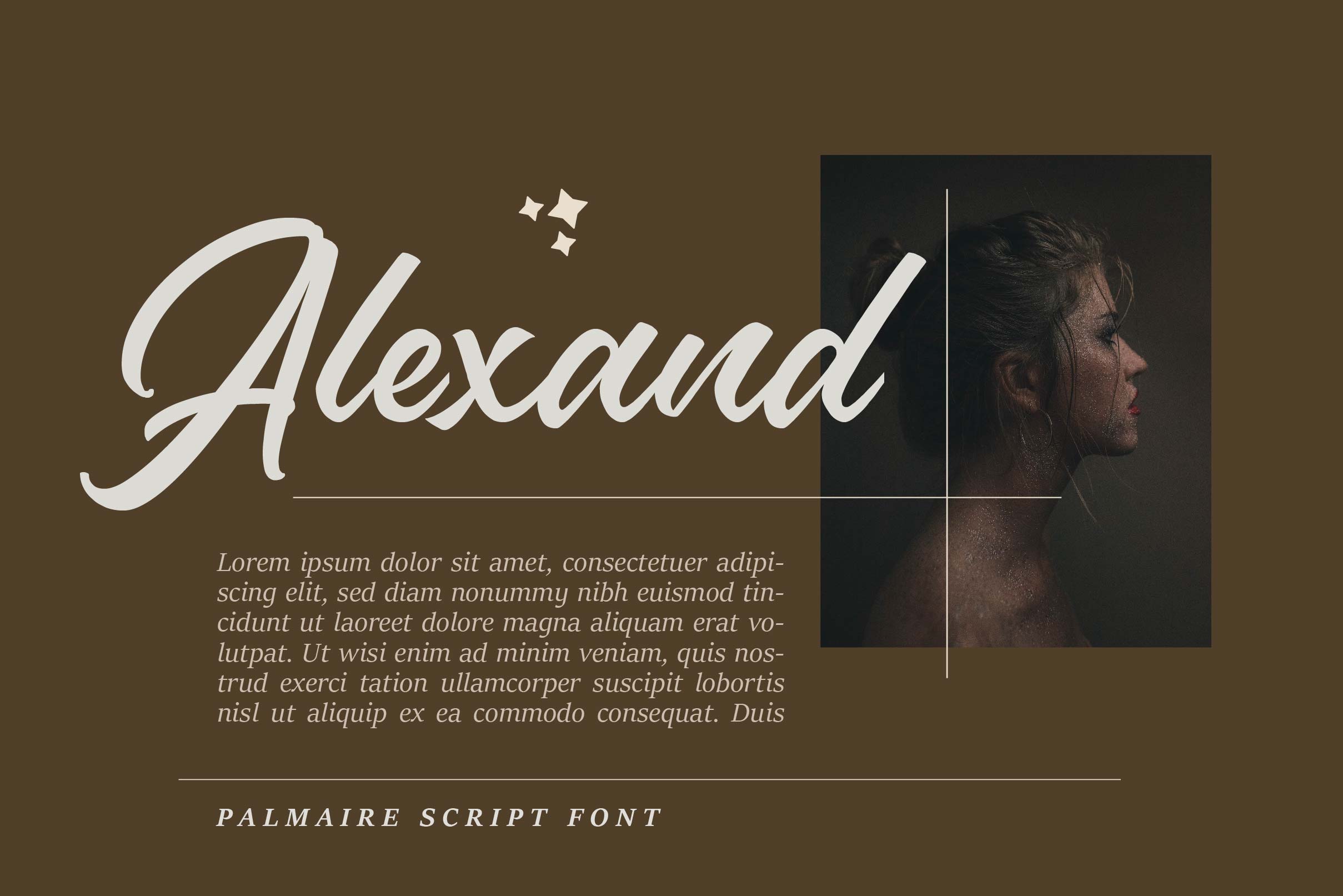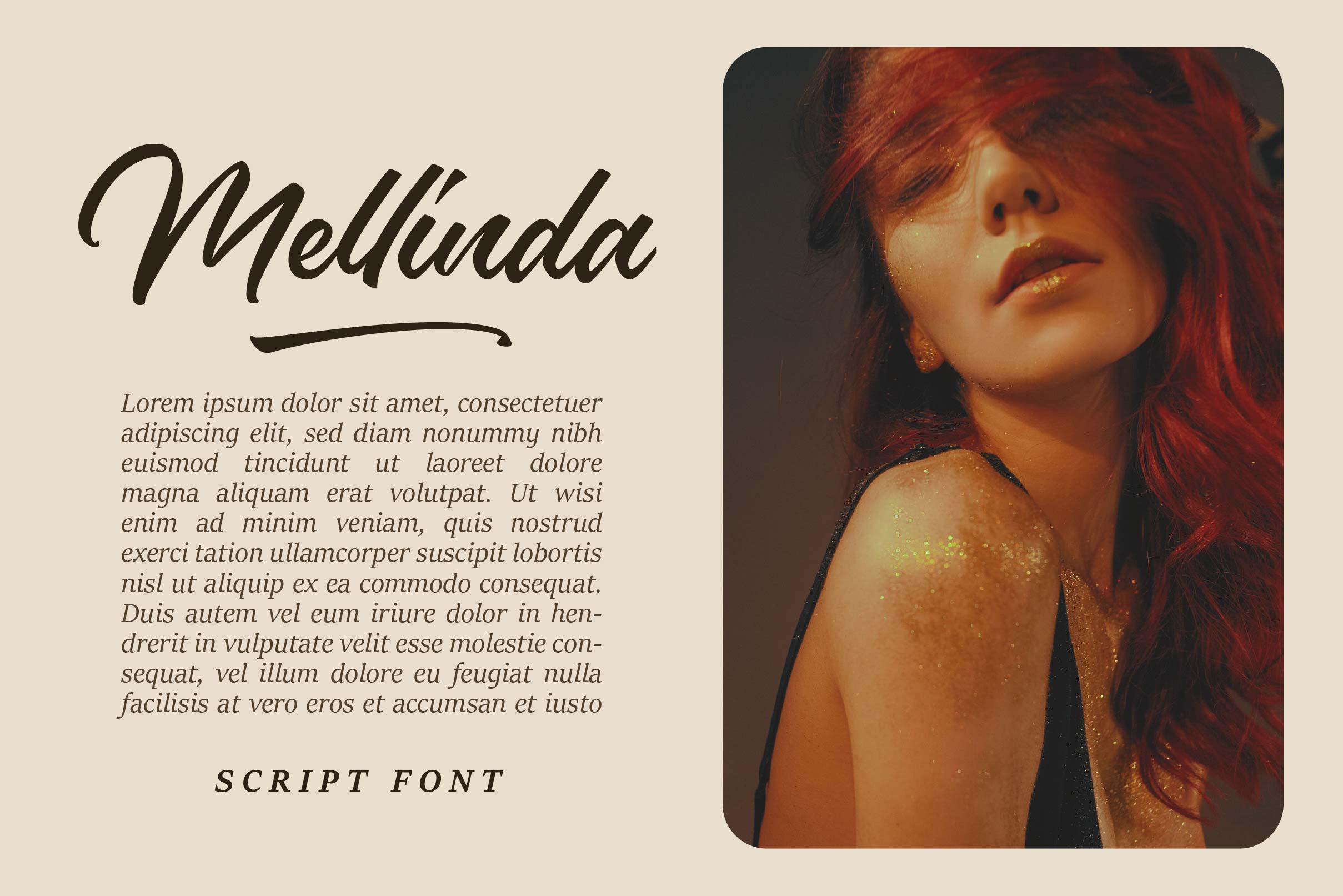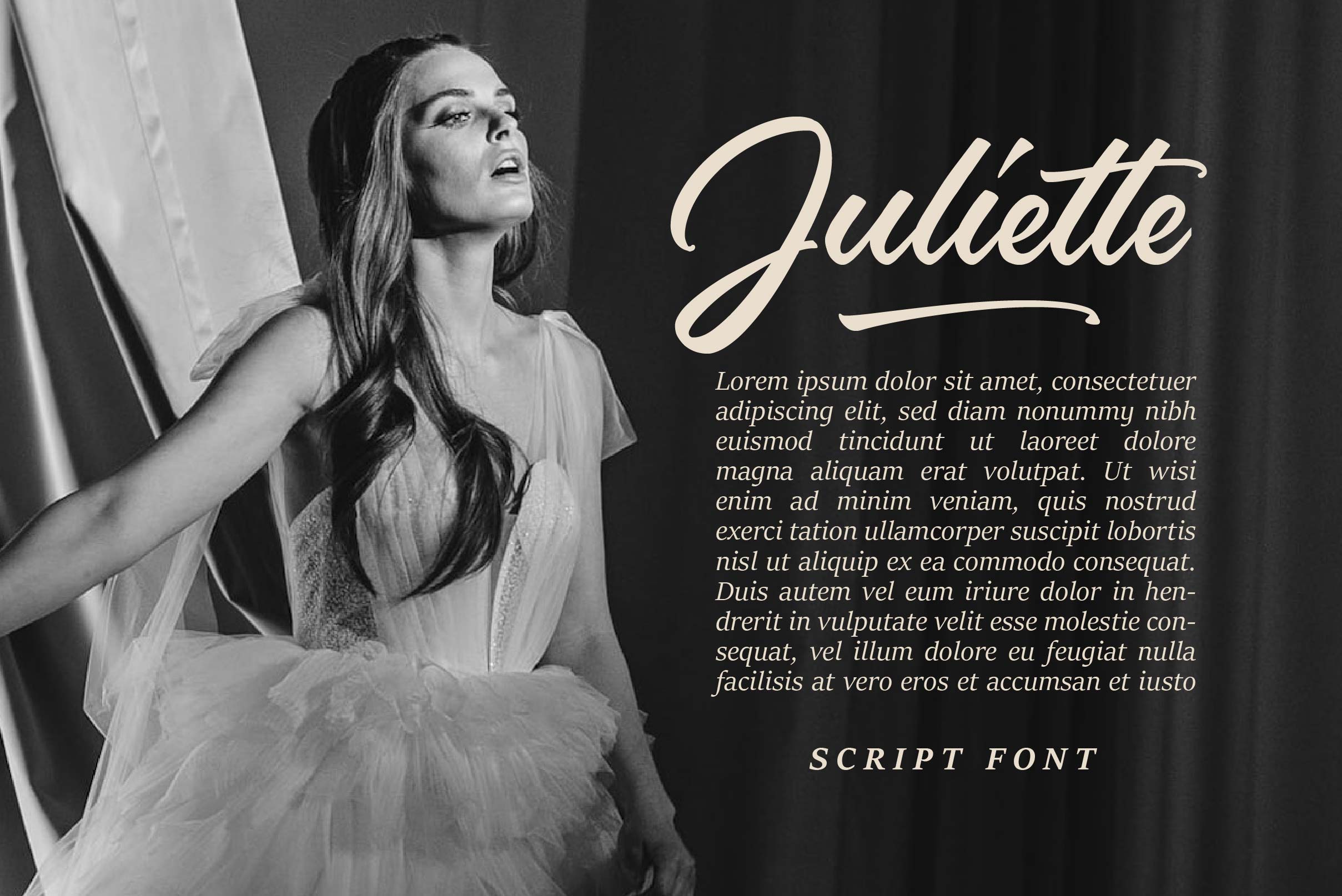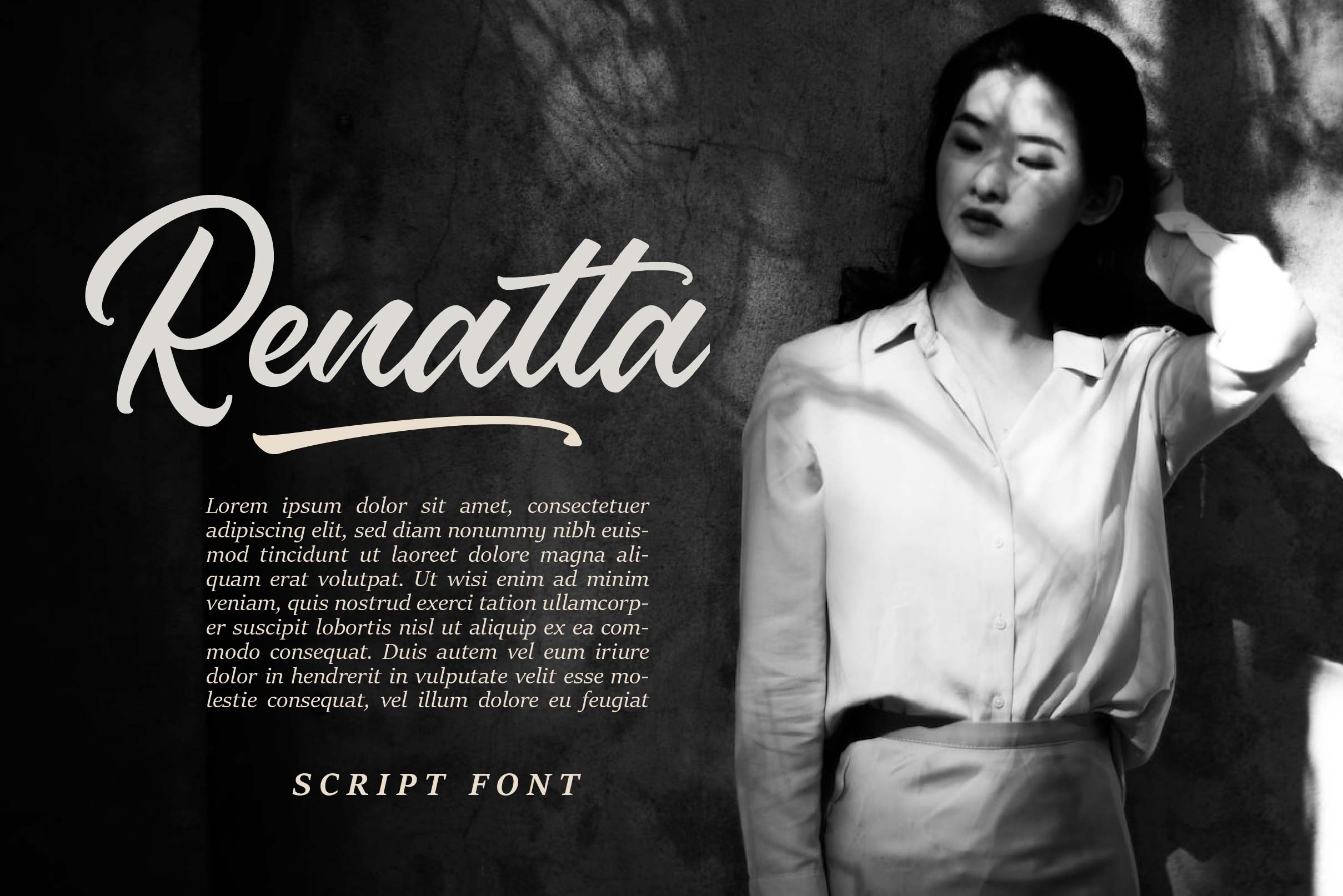
Palmaire Font
Palmaire Script Font is a sweet and brushed handwritten font. This font is PUA encoded which means you can access all of the glyphs and swashes with ease! Assertive and flowing, this font will make each of your creations come alive!